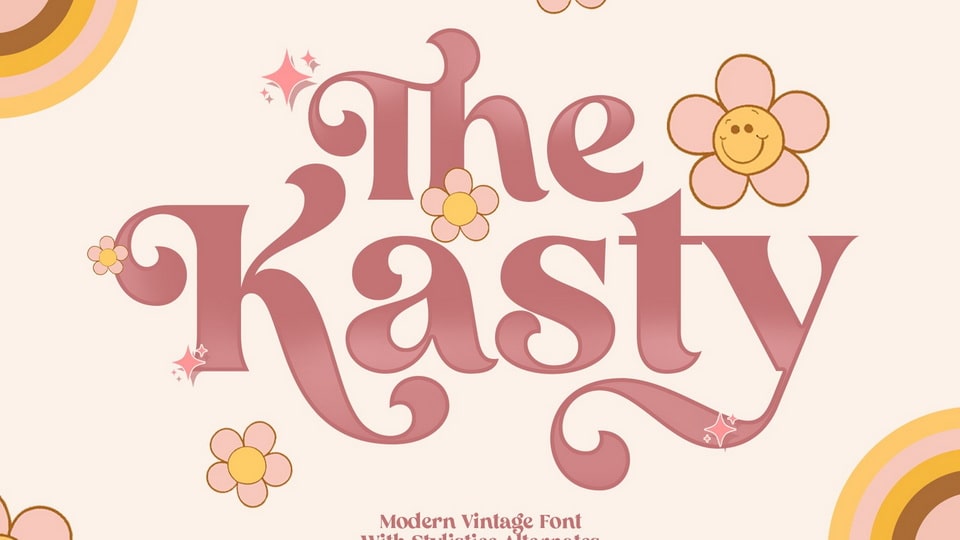
Feb 2, 2025SerifThe Kasty Font The Kasty is a modern font that’s both stylish and cool. With beautiful curves and precision accuracy, it’s perfect for logos, branding, greeting cards, title packaging and more. Font DetailsDesigned by: Dean NugrahaWebsiteLicense: Free for personal use Download The Kasty FontFile size: 23.80 KBCreated: February 16, 2025Updated: February 16, 2025 Download Explore similar fonts Verve Font Family Husty Birds Font Rubita Smile Font Norack Sekaliye Font Neo Romania Font Brolike Font # Elegant# Playful# Retro More fonts by Dean NugrahaMegan Display FontBeauty Magnolia FontGlossy Serif FontKraton FontMighty Bagher FontSwagen Aesthetic FontGestur Morise FontMillion Dreams Font